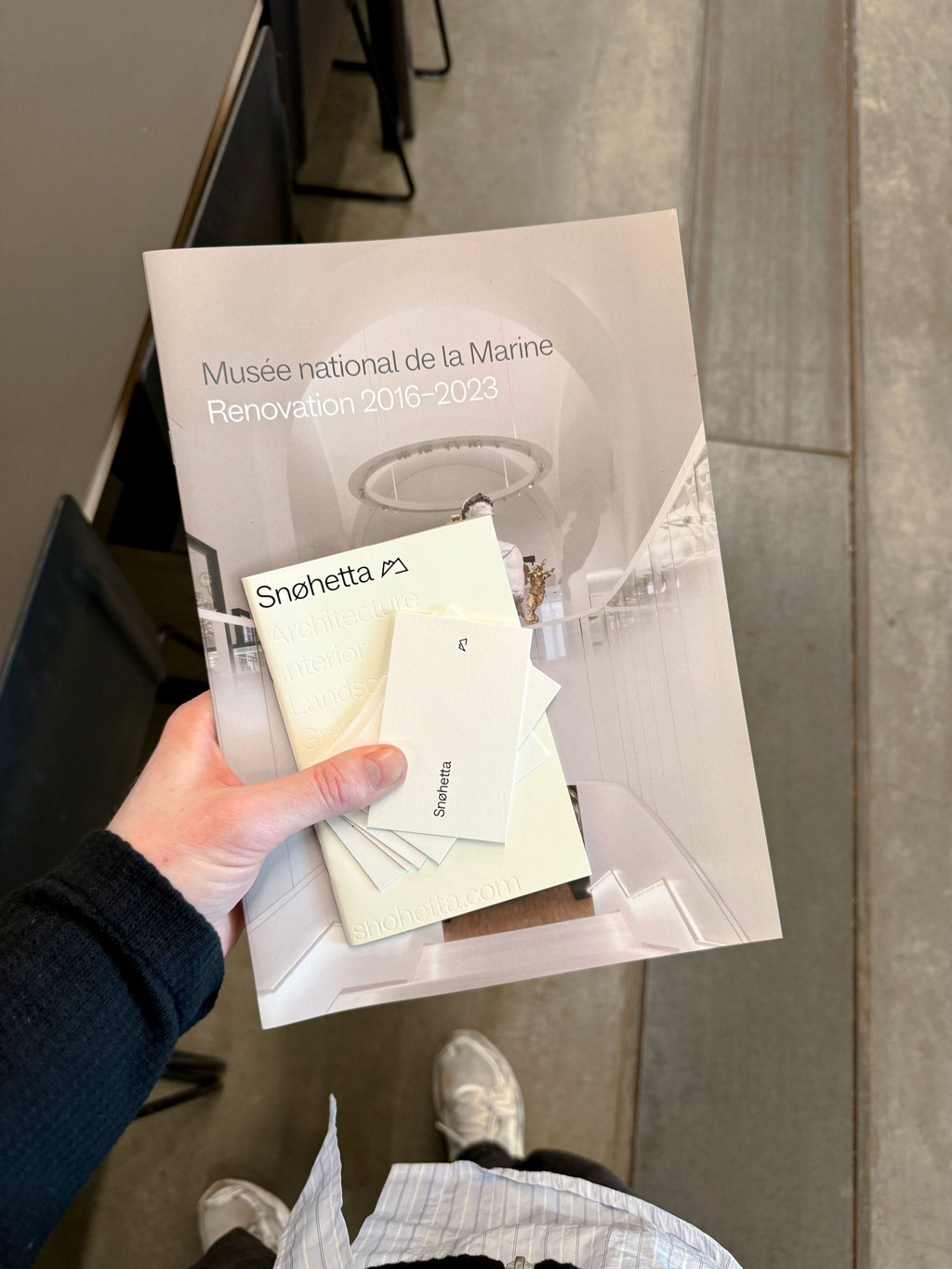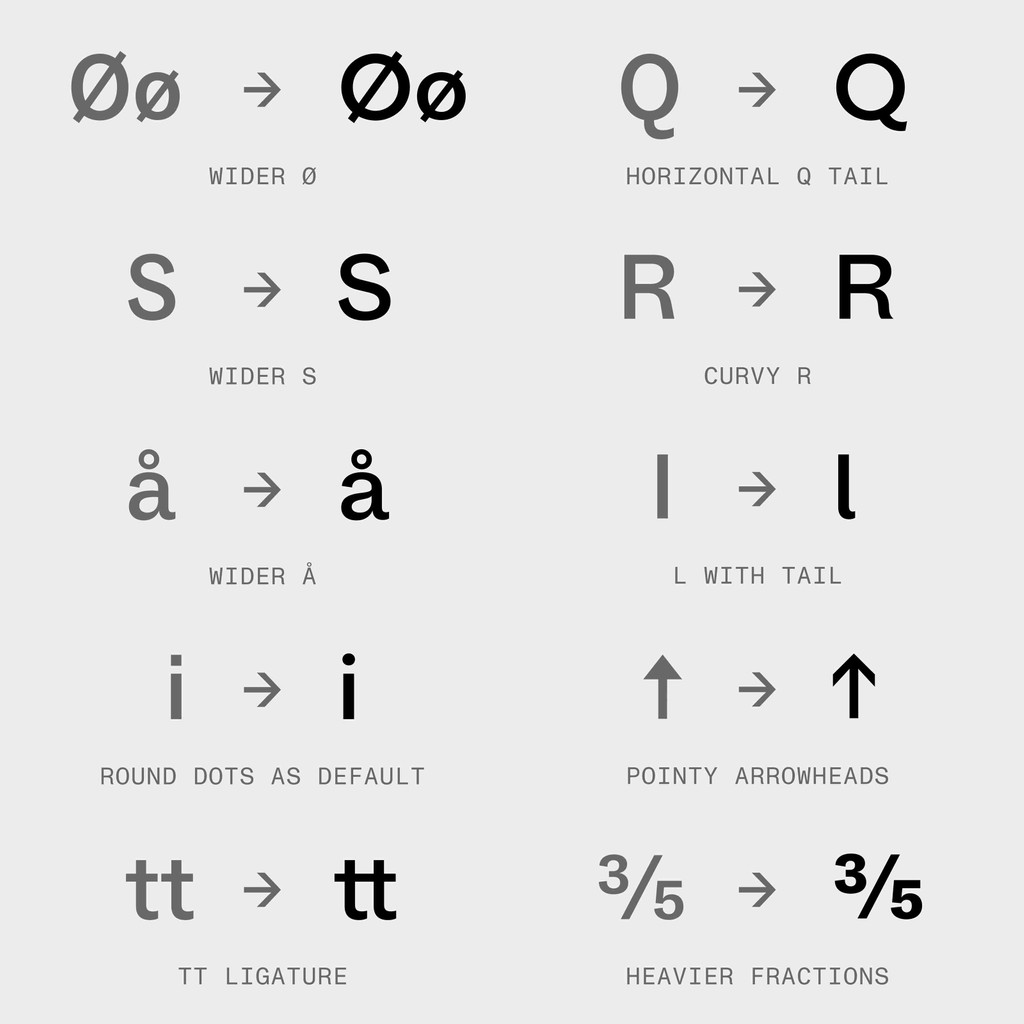
Snøhetta
Customized Typeface & Logo
The Norwegian transdisciplinary architectural practice Snøhetta reached out to us to create a font customization and bespoke wordmark for its recent identity overhaul.
Alongside new character design and special glyphs, we embedded custom ligatures into the font, so that in-house designers can seamlessly integrate both wordmark and logomark into text.
For the collaboration, we made core characters of our typeface ABC Social more geometric and fluid, creating a bespoke cut called Dovre Social. It’s named after the municipality where the Snøhetta mountain is located — and where the Snøhetta team often travel together for company retreats.
Font Customization
Social is a friendly grotesque of freely designed forms and rounded shapes. For Dovre Social, we gave rounded characters even more generous space to create an airy and constructed feel. We also sloped tails and accentuated curves, to make the character set feel even warmer and architechtural. We think this new face is well-suited to the geometric, yet welcoming and organic, vibe of Snøhetta’s own designs.
Created in Light, Medium, and corresponding Italics
Take a look at the changes we made in some of the core characters that we identified:
Wider S that takes its time
Curvy R stem that slides
Curious tail and rounded Q
Special Glyphs
We created custom glyphs for the global brand, which has offices in nine locations spread out across four different continents. Our custom arrowheads are a key UX element across the company’s website and digital identity.
Ligatures
To help Snøhetta designers integrate the brand’s logo and wordmark into text seamlessly across a range of applications, our discretionary ligatures embed the logotype designs into the typefaces files themselves. The quick shortcuts allow for fast implementation.
BTS
Visiting our clients personally and seeing their work space and archives always helps us get to know a brand more intimately. Getting to know a team and their way of collaborating lets us tailor our solutions more precisely, and we often draw inspiration from the world where the font will find its home!
On a visit to the Snøhetta Oslo offices, our team recently documented the early life of Social Dovre: